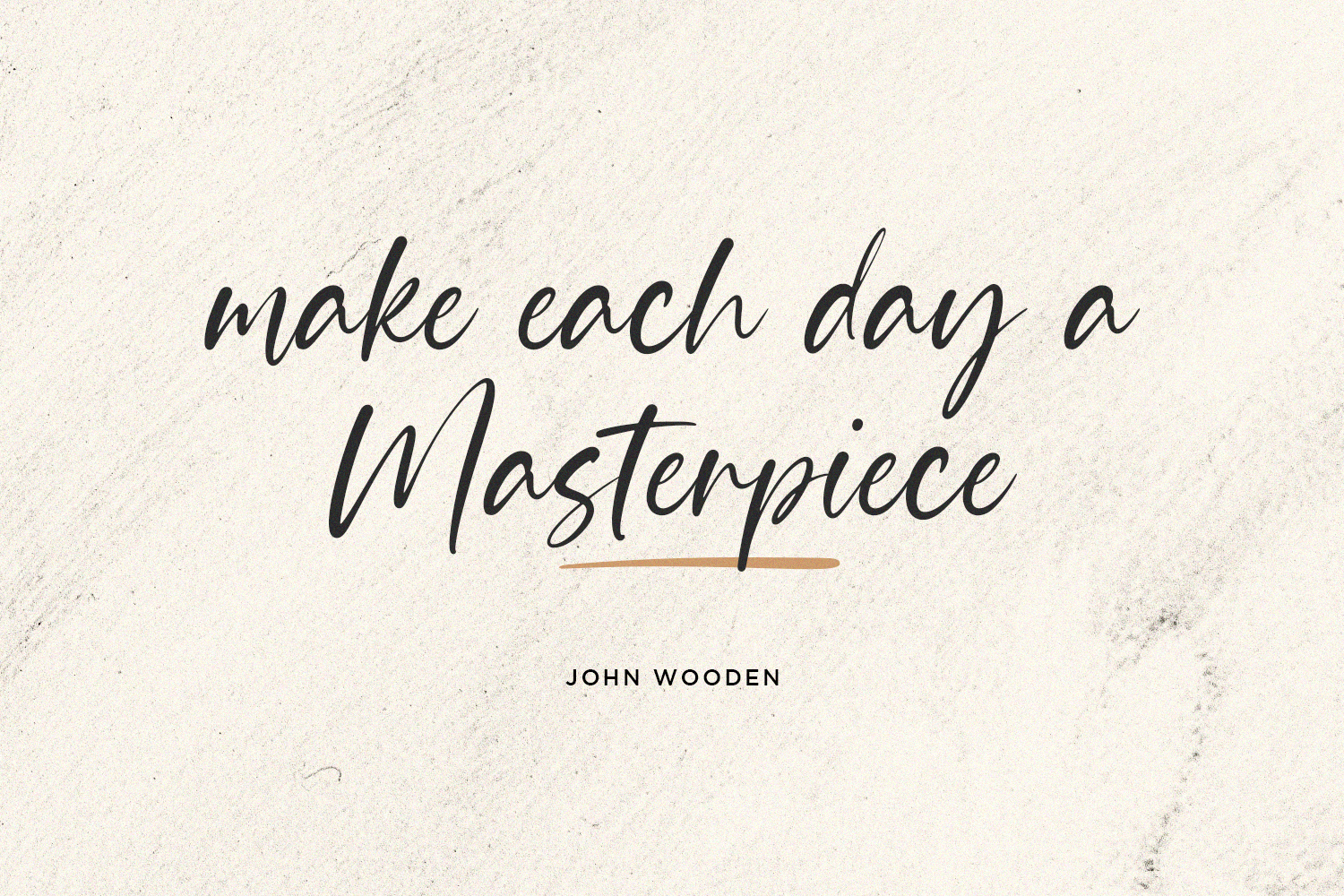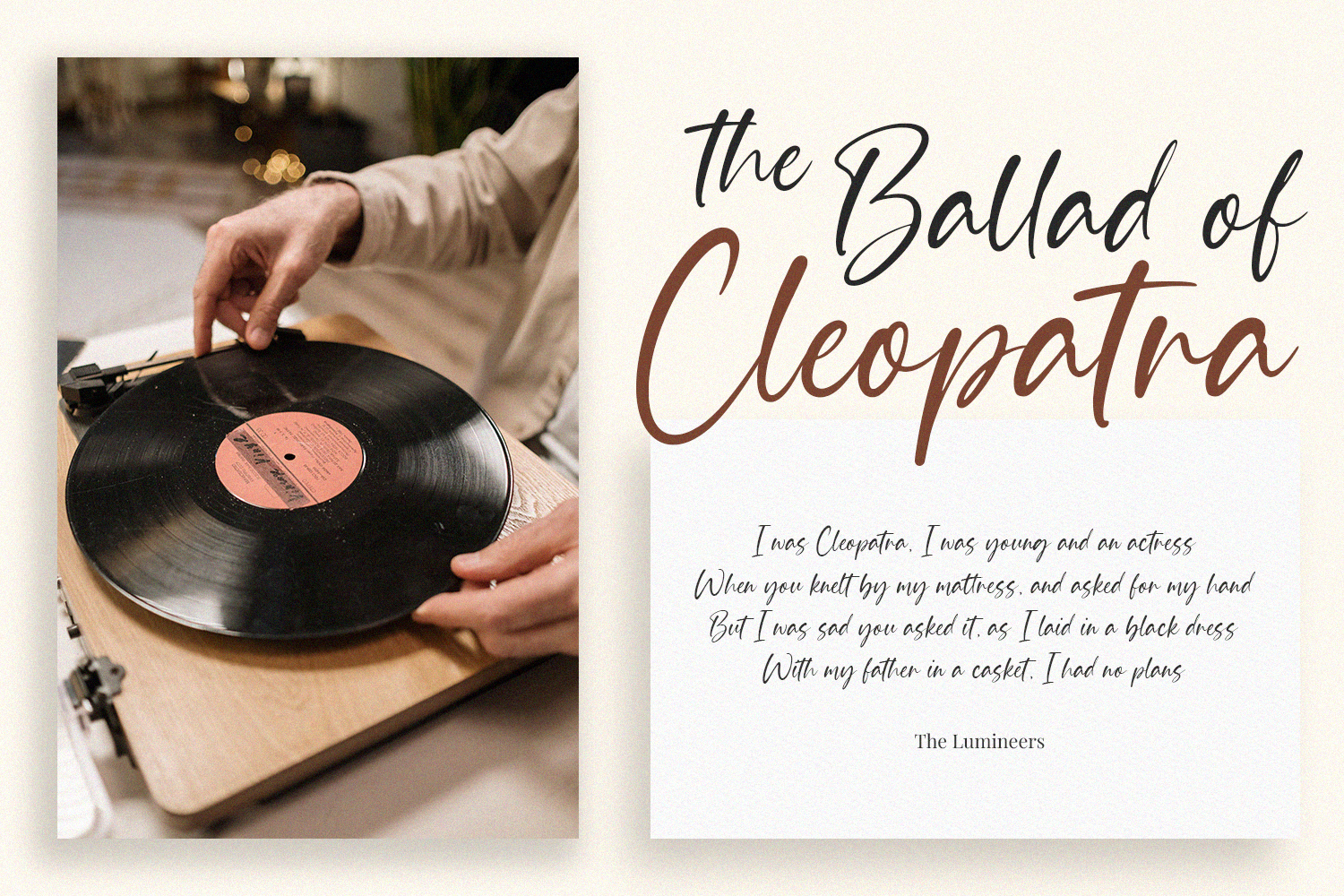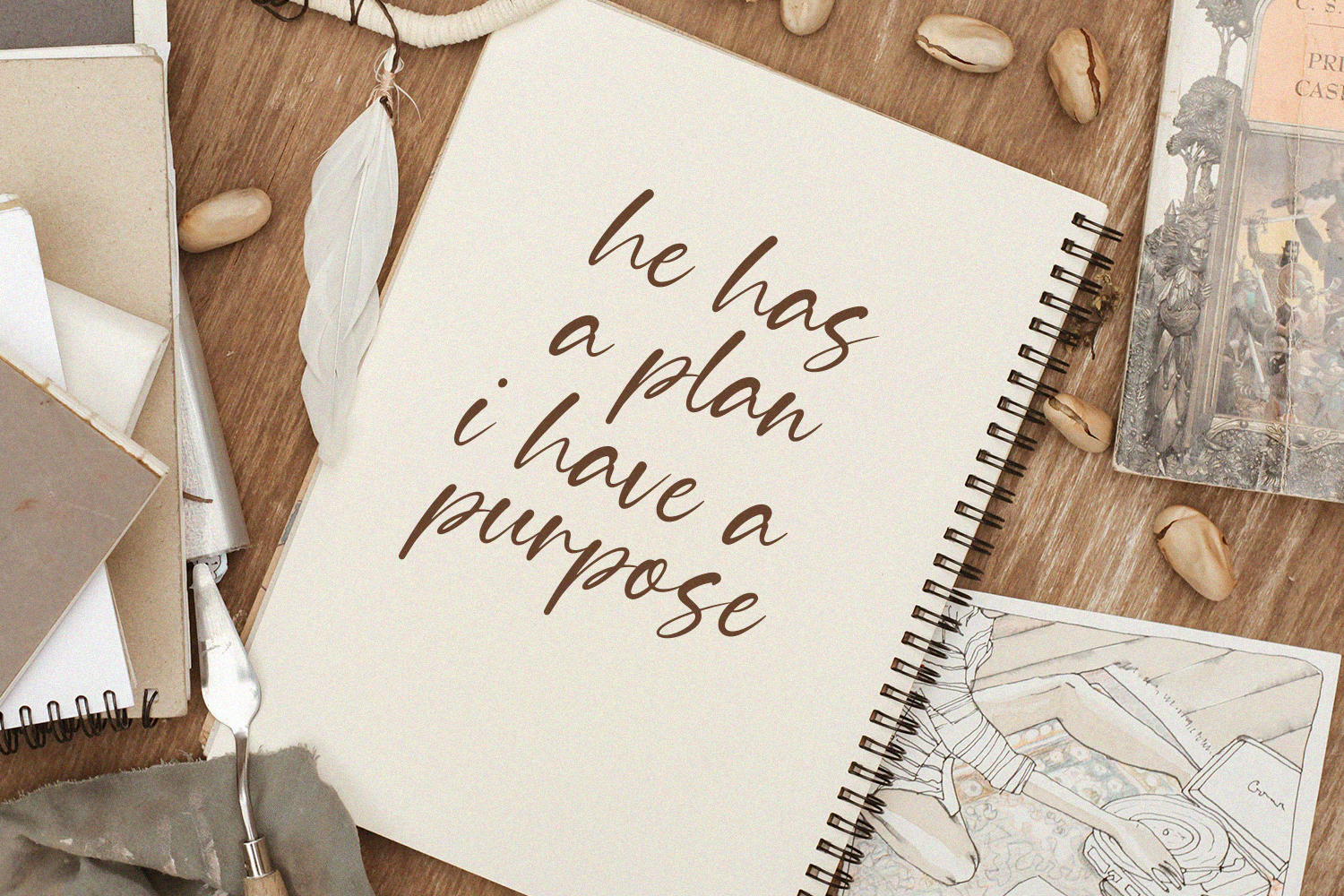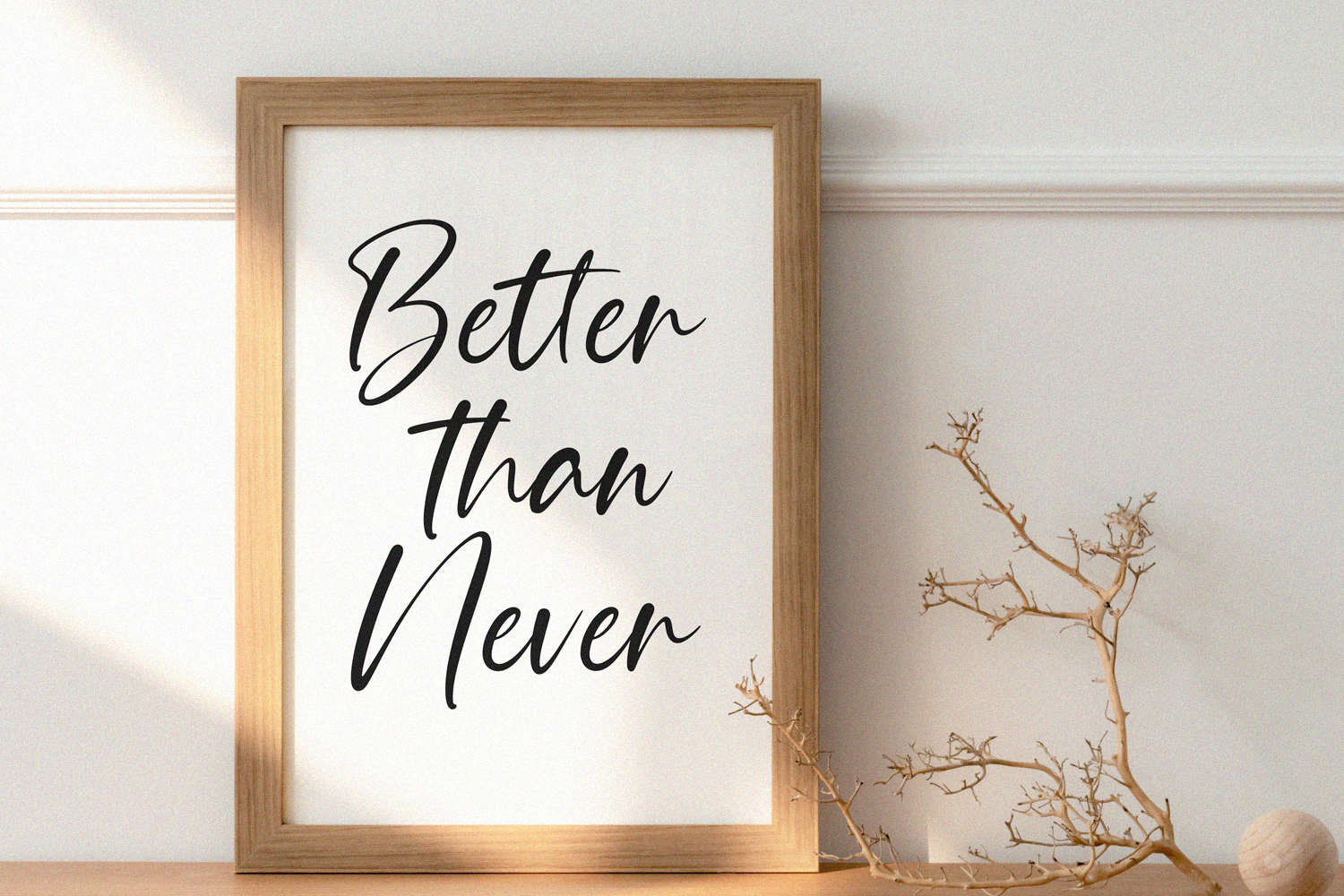
Giantboat Font
Giantboat Script Font is a dazzling script font. This font is neatly crafted and highly detailed. Whatever the topic, this font will be a wonderful asset to your font library, as it has the potential to enhance any creation.